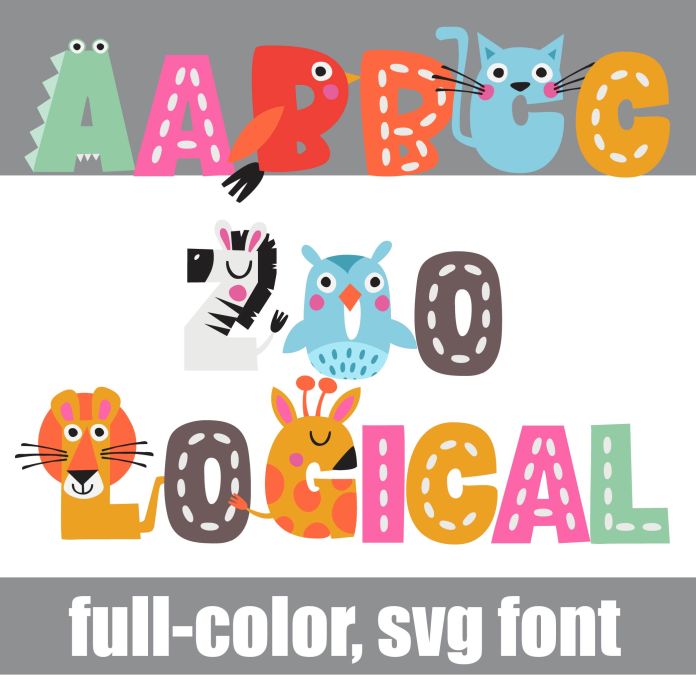
This full-color font features an uppercase that looks like animals that start with each letter, for example Z is a zebra. There is an alternate upper and lowercase in different colors without animals to help you keep your work creative looking. Access it through your system's character map or the glyph map in Silhouette Studio. This font works best for titles, displays, posters and more. Please note color fonts will show as black in non compatible programs. This font type is compatible with Silhouette Studio